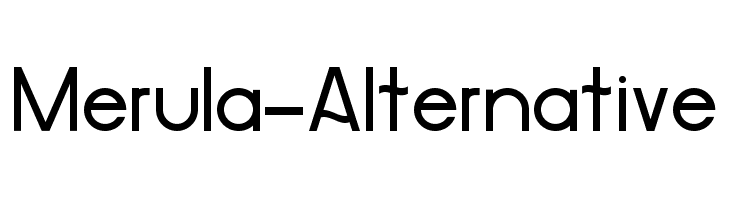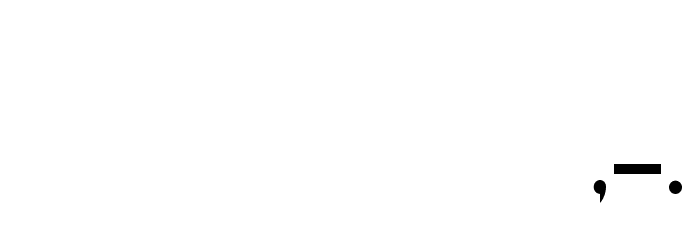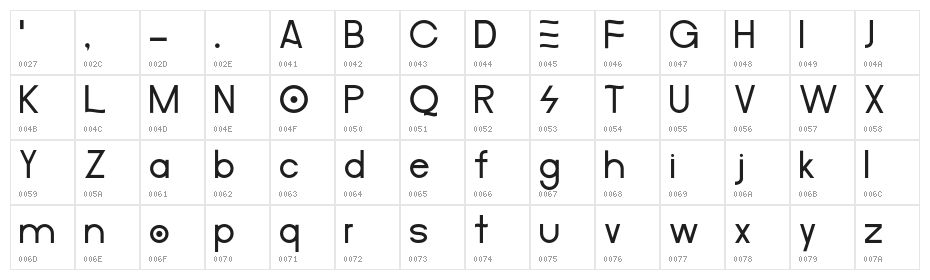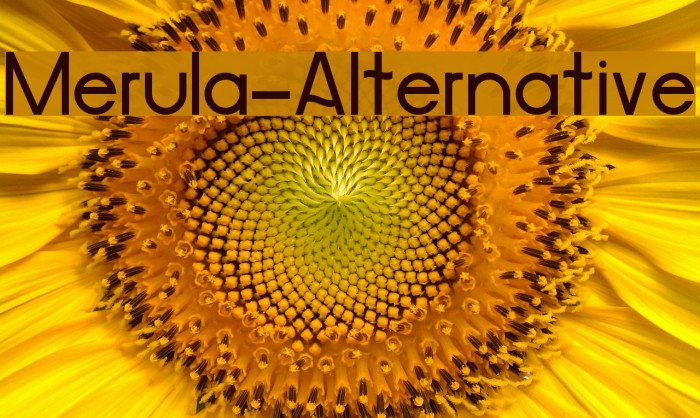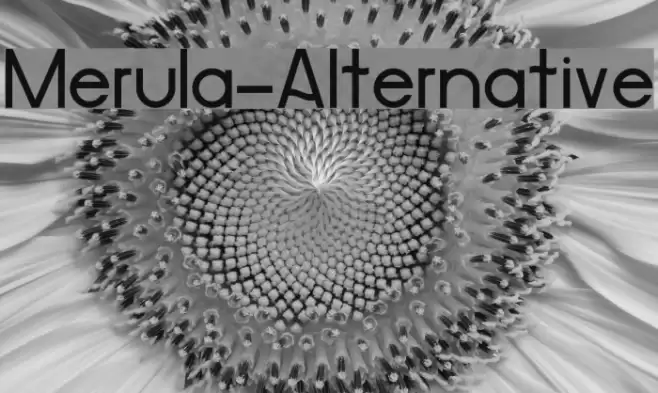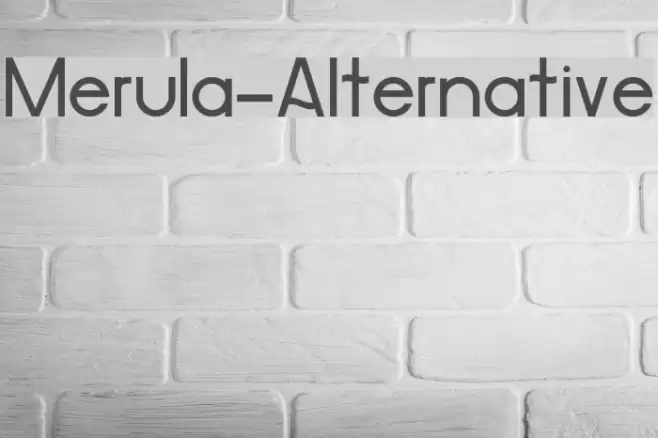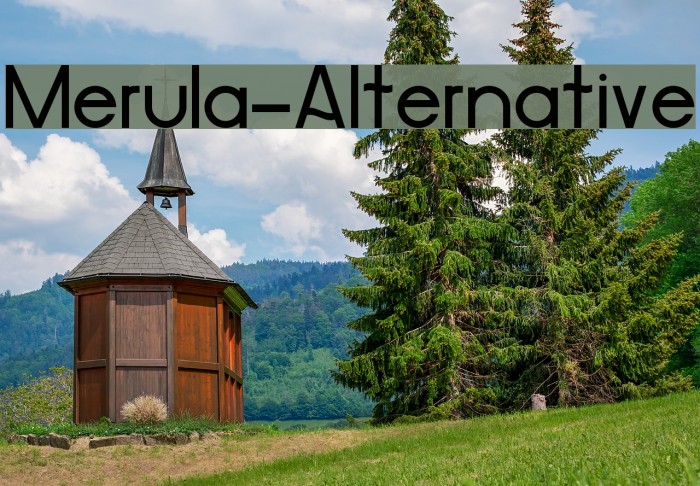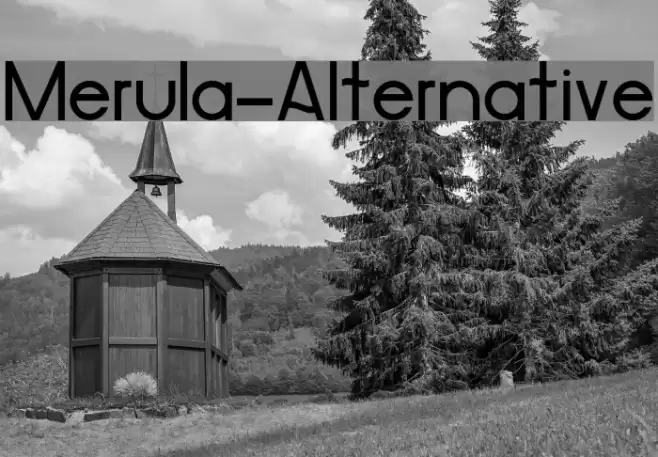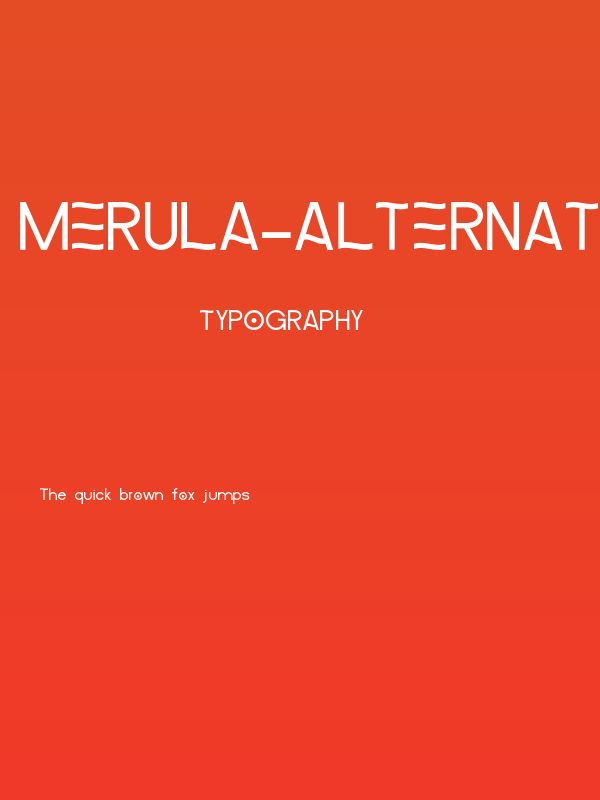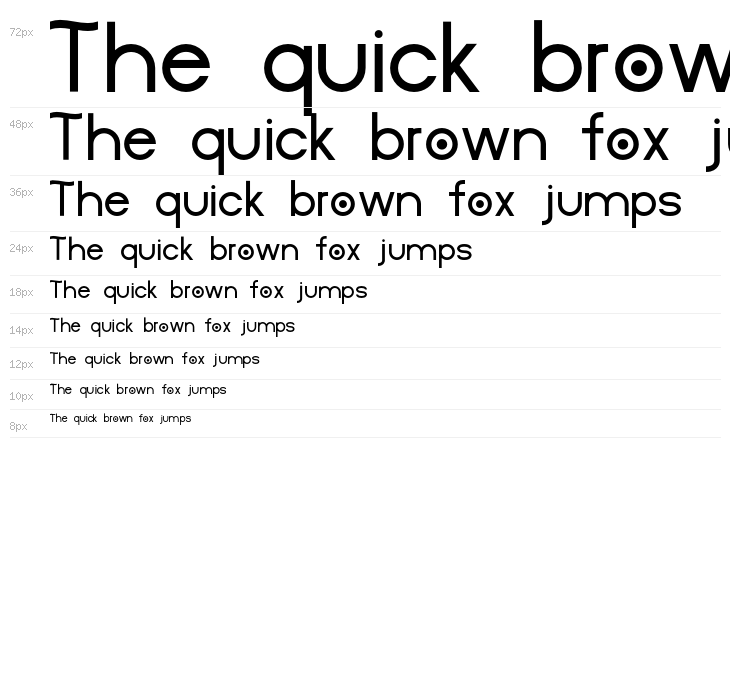
Merula-Alternative Font
Merula-Alternative Description
This font features a modern and playful design, characterized by its unique geometric shapes and unexpected elements. The uppercase letters incorporate distinctive features such as slashes and circles, adding a quirky and artistic flair. The lowercase letters maintain a clean and rounded appearance, providing a harmonious balance between creativity and readability. The numbers and special characters continue this theme, with bold and striking forms that stand out. Overall, this font combines a sense of fun with a contemporary aesthetic, making it suitable for a variety of creative projects.